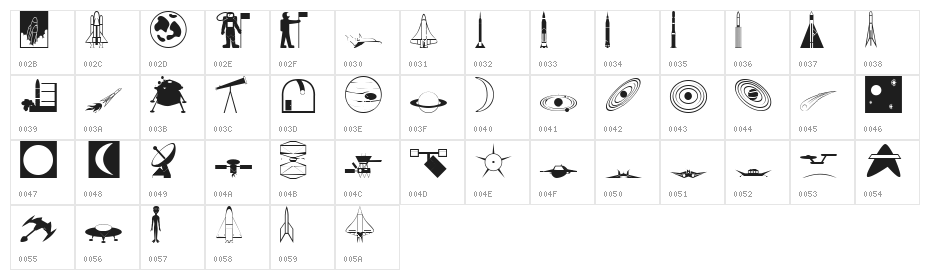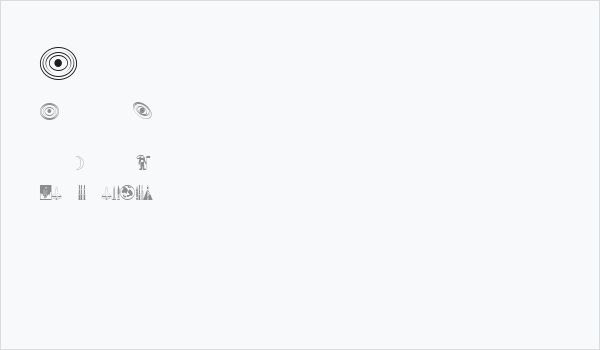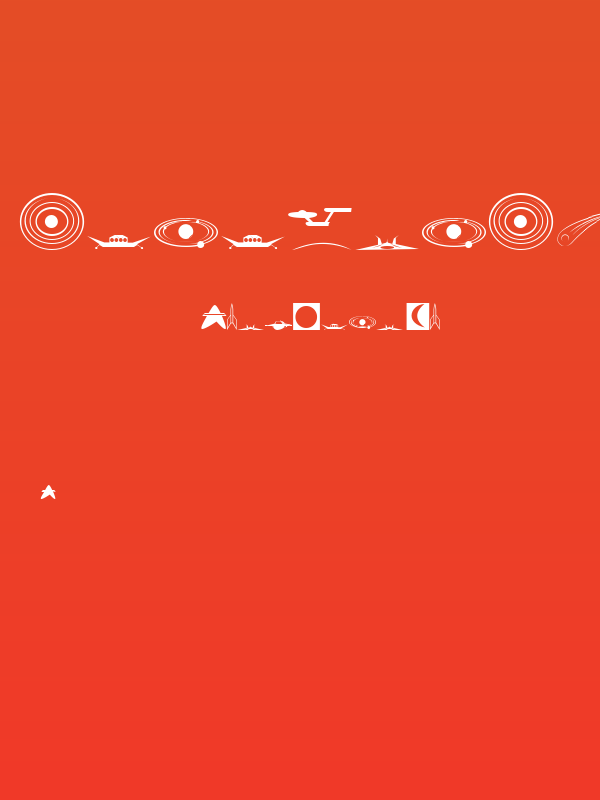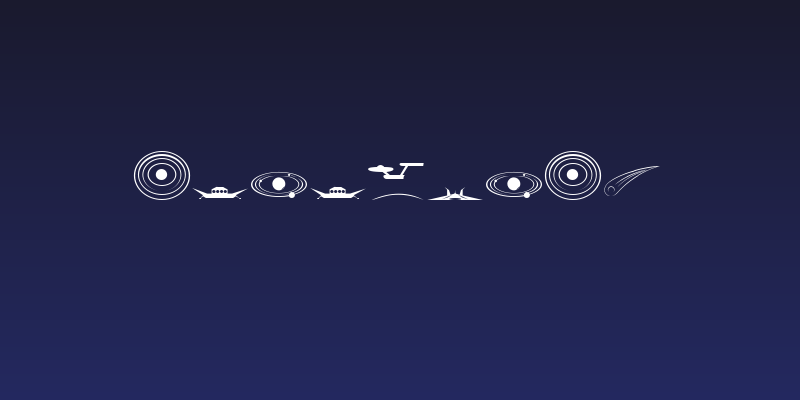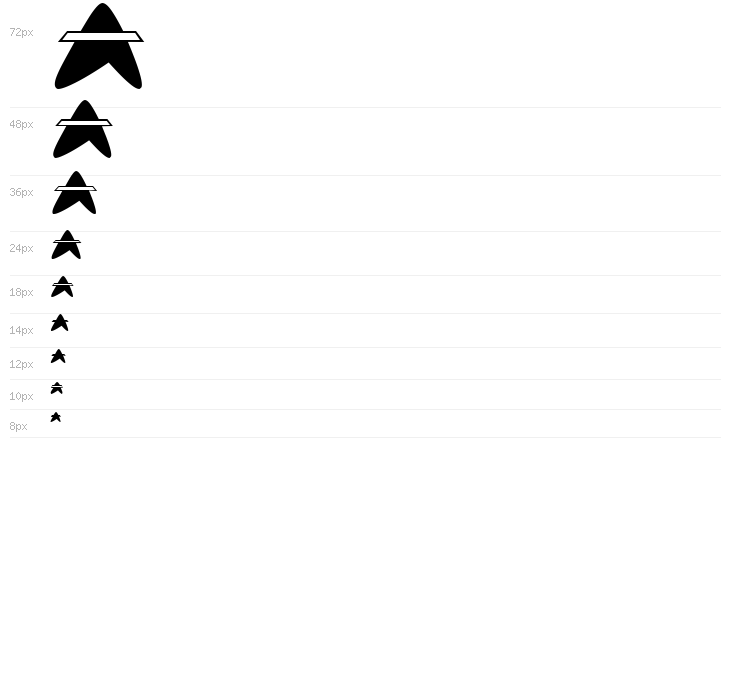
Crarspace Font
Crarspace Description
This is a decorative font featuring a variety of space-themed icons and symbols. The characters include planets, rockets, spaceships, astronauts, and other celestial motifs. Each symbol is intricately designed, capturing the essence of space exploration and science fiction. The style is playful and imaginative, making it suitable for projects that require a futuristic or cosmic theme. The icons are bold and clear, ensuring they stand out in any design.
| Use Case | Logos, Posters, Creative Designs |
| Proposed Projects | Ideal for science fiction book covers, space-themed event posters, educational materials about astronomy, and creative projects that require a cosmic touch. |